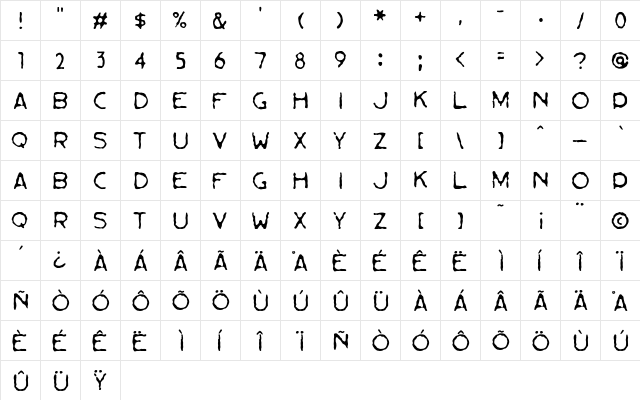
Bessie Medium
Bessie takes a measured approach to typography — its balanced proportions and neutral character make it a reliable workhorse for both digital and print work.